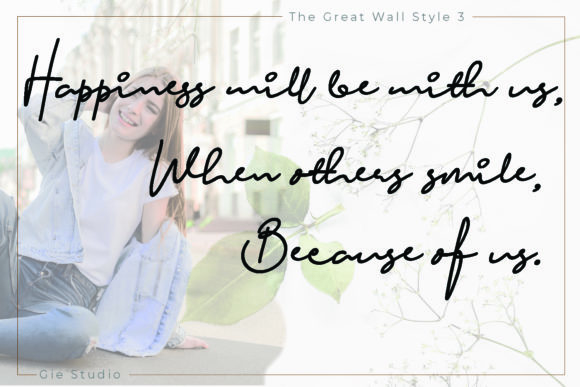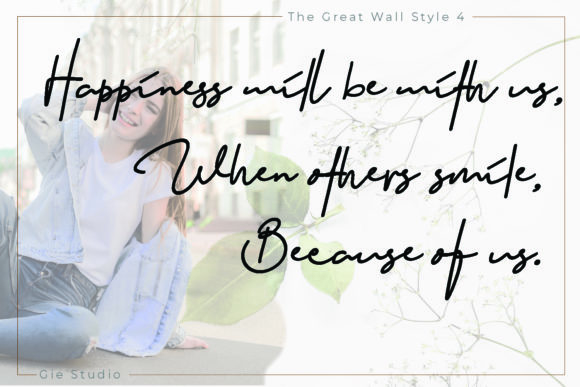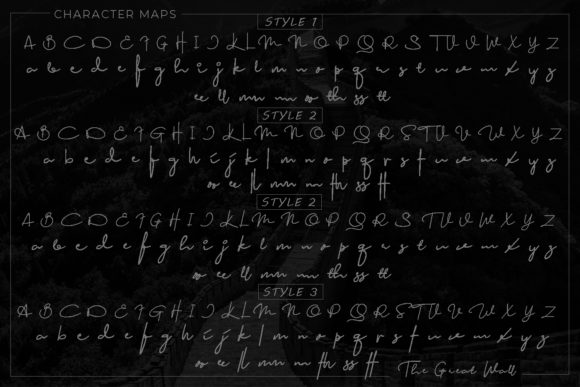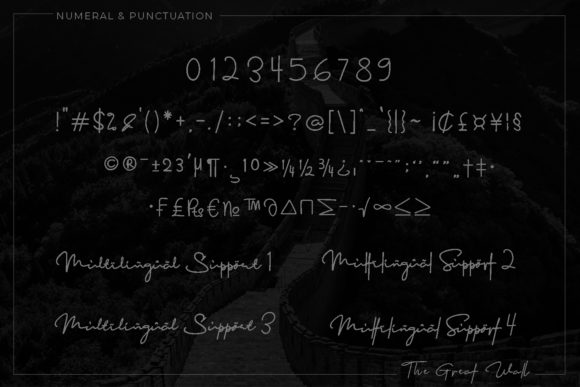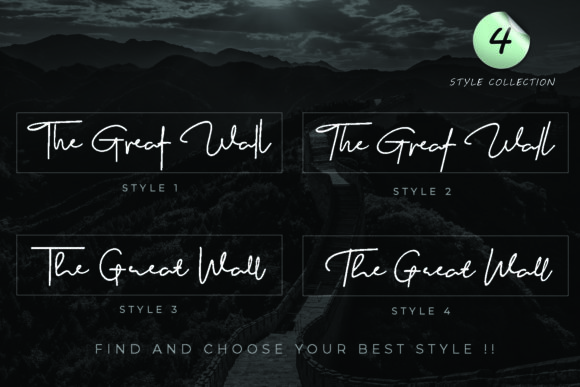
The Great Wall Font
About The Great Wall Font
The Great Wall consists of four elegant styles. It features an incredibly classic style, while still keeping a friendly feel. The Great Wall is the perfect font for making original and outstanding designs.